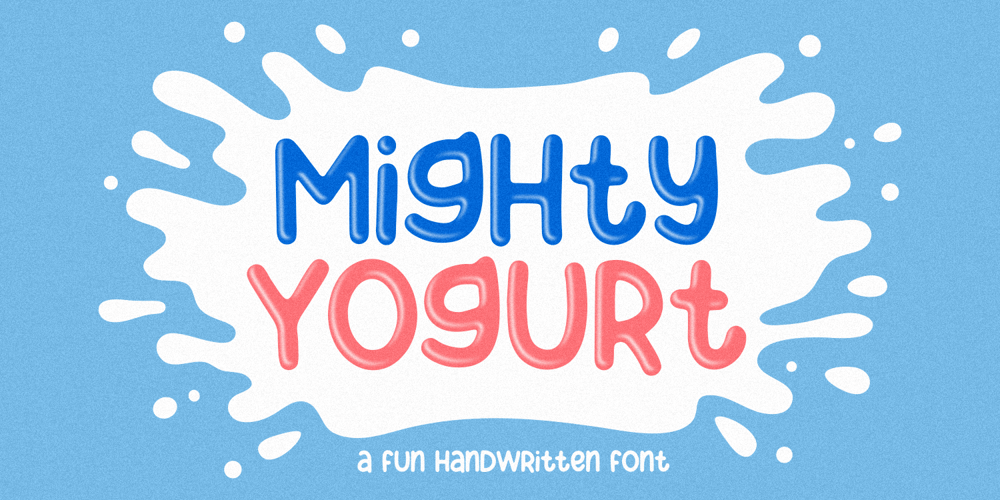
Mighty Yogurt Font Family was designed by ANGGI HERMAWAN and published by Forberas Club. Mighty Yogurt contains 1 styles and family package options. Mighty Yogurt Font is script font inspired by modern and ligature characters. It is especially designed for luxury, elegant, feminine projects, Mighty Yogurt Font is perfect for creating modern and chic designs such as logos, packaging, editorials and more.this Mighty Yogurt Font is only available for personal use. So, if you want to use its full features and license, get the premium version as well!